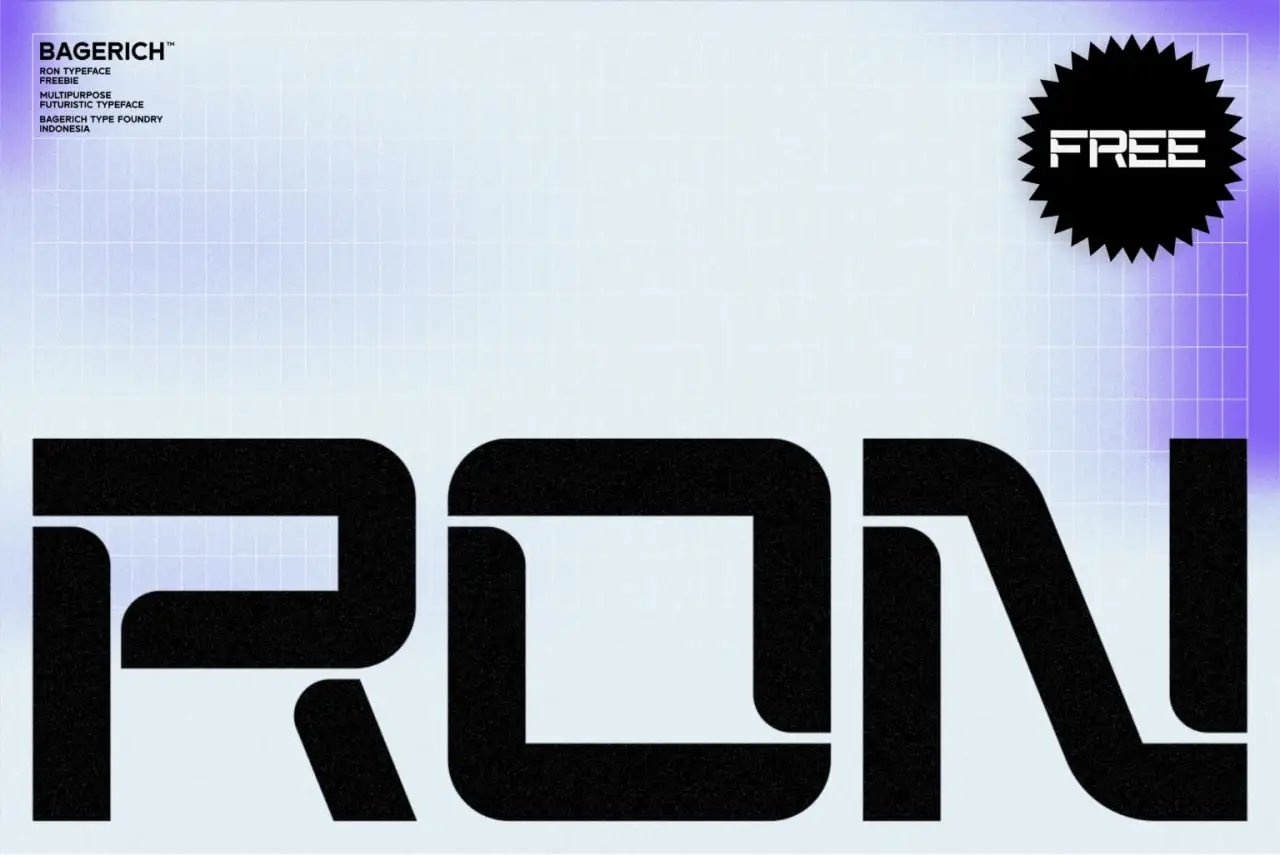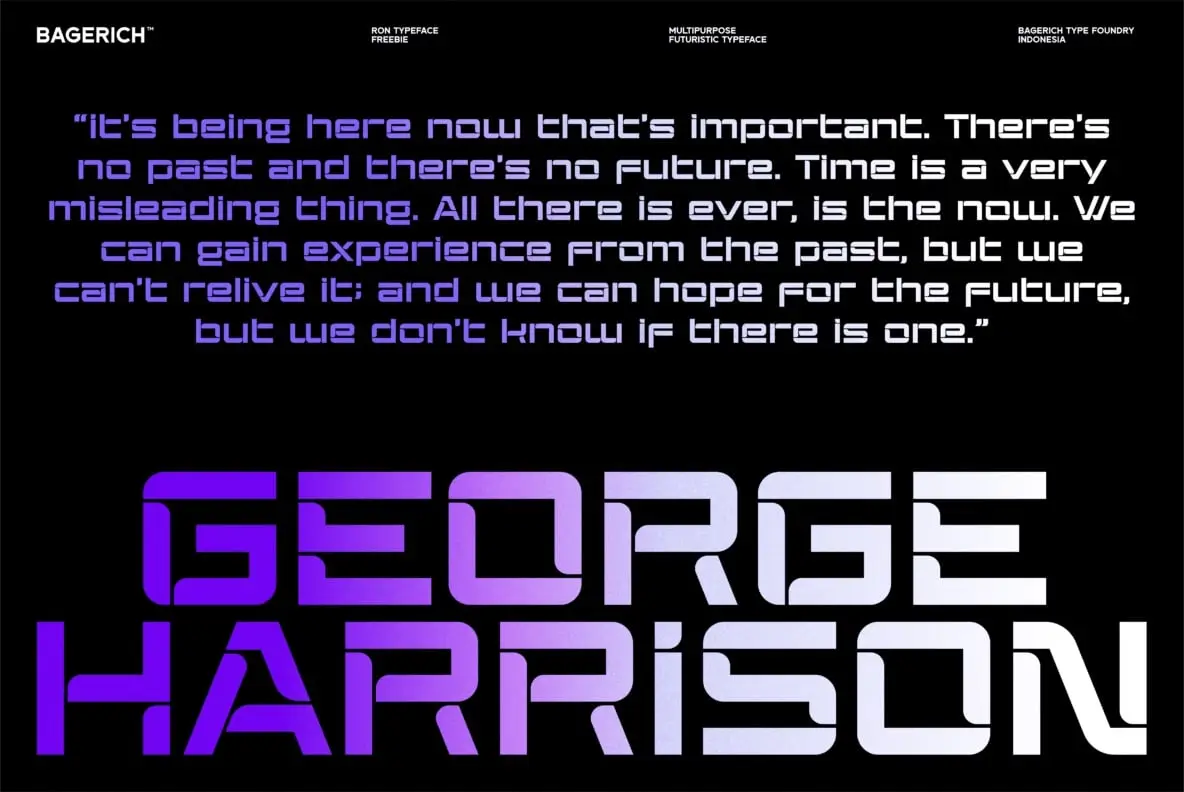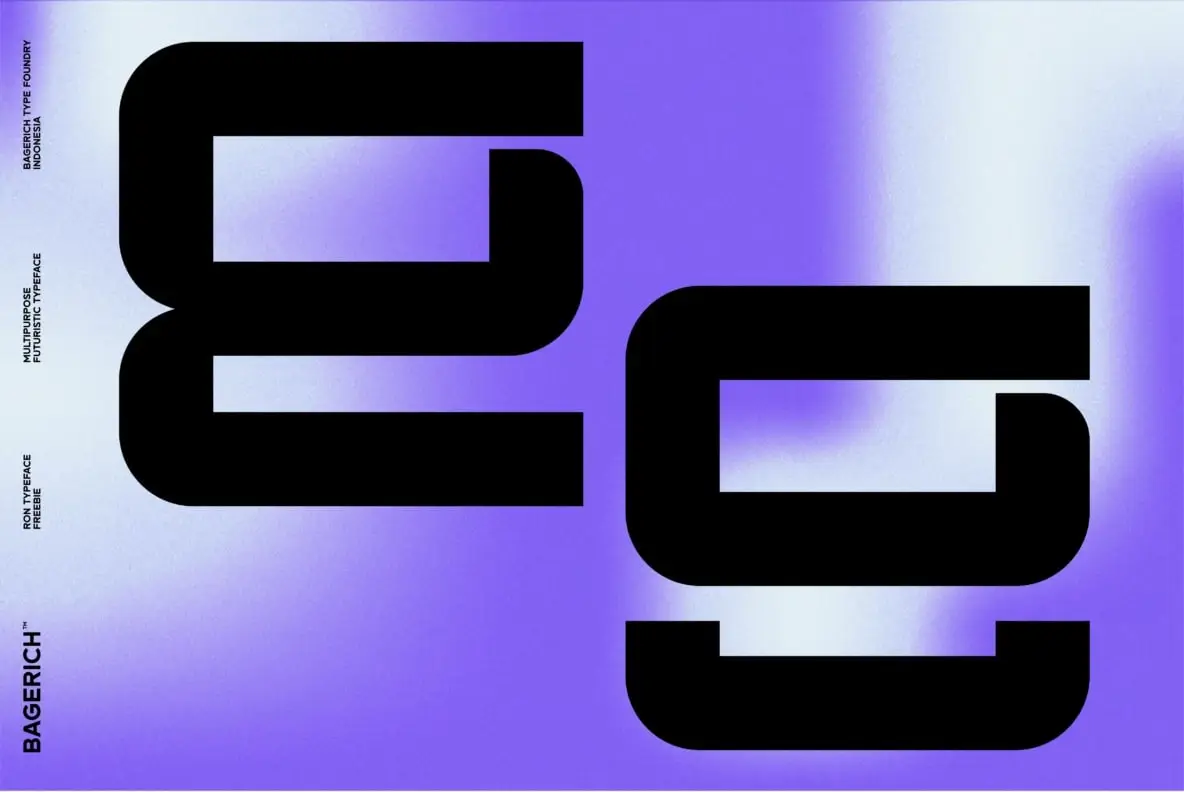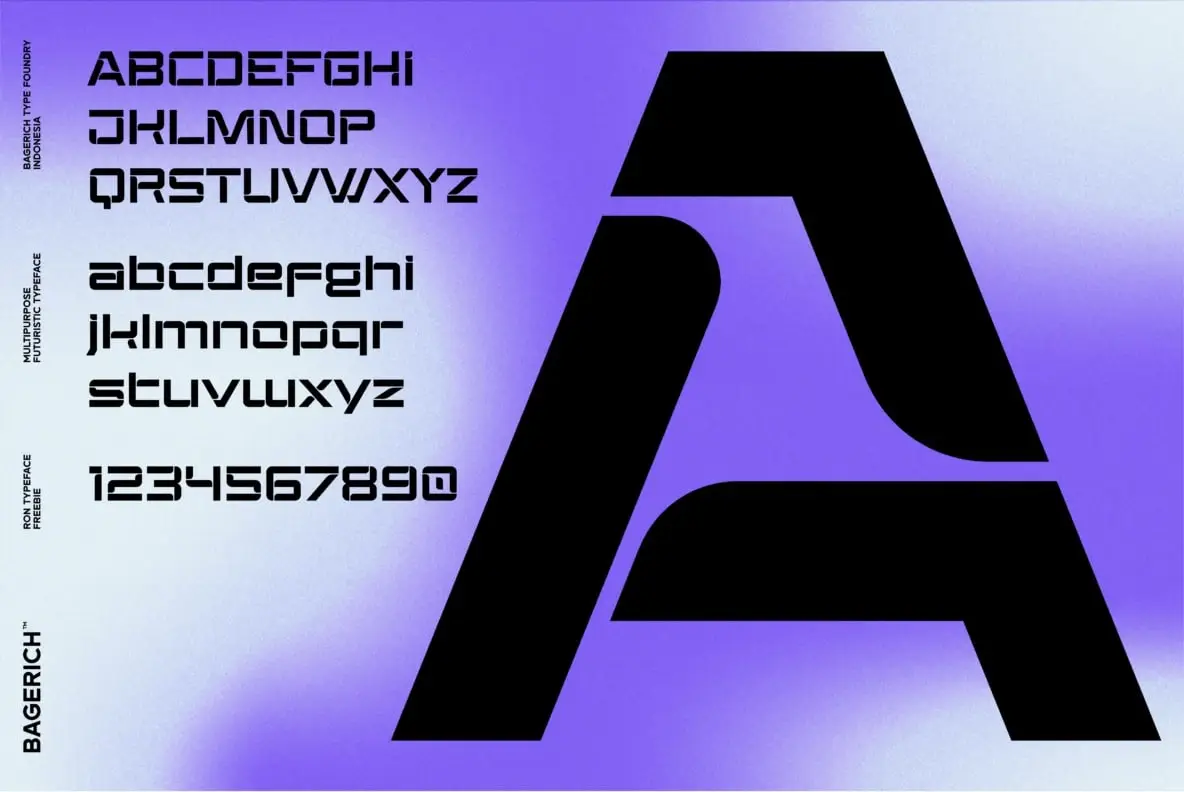
Introducing the Ron Font, a stunning typeface designed by Reza Rasenda. This font showcases a modern aesthetic with its clean lines and versatile styles, making it an excellent choice for various design projects.
- Multiple weights for flexibility
- Stylish and contemporary design
- Uppercase and lowercase letters
- Numerals and punctuation included
- Styles: Regular, Bold, Italic
This font is perfect for branding, logos, web design, and print materials. Its modern look makes it suitable for both professional and creative projects.